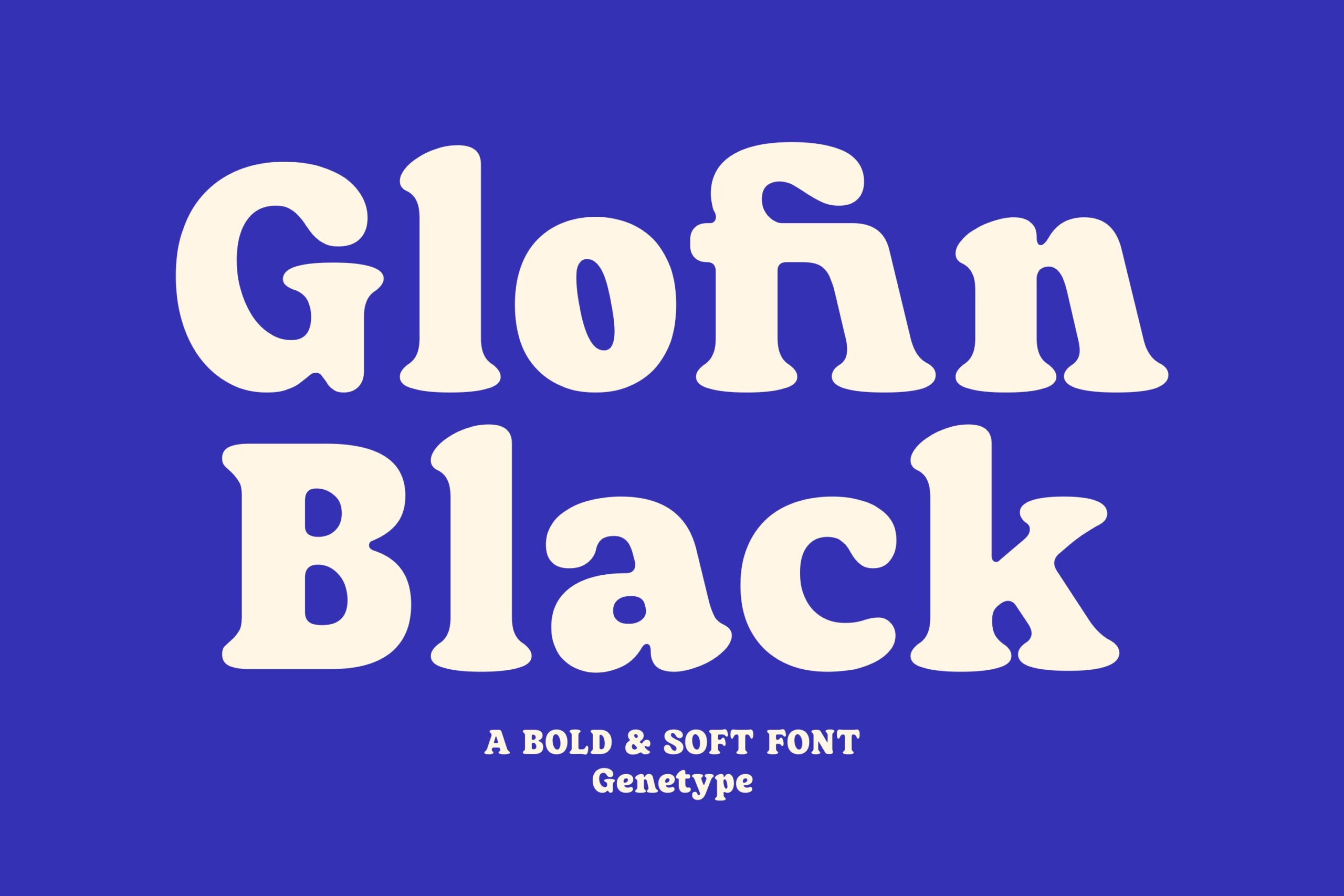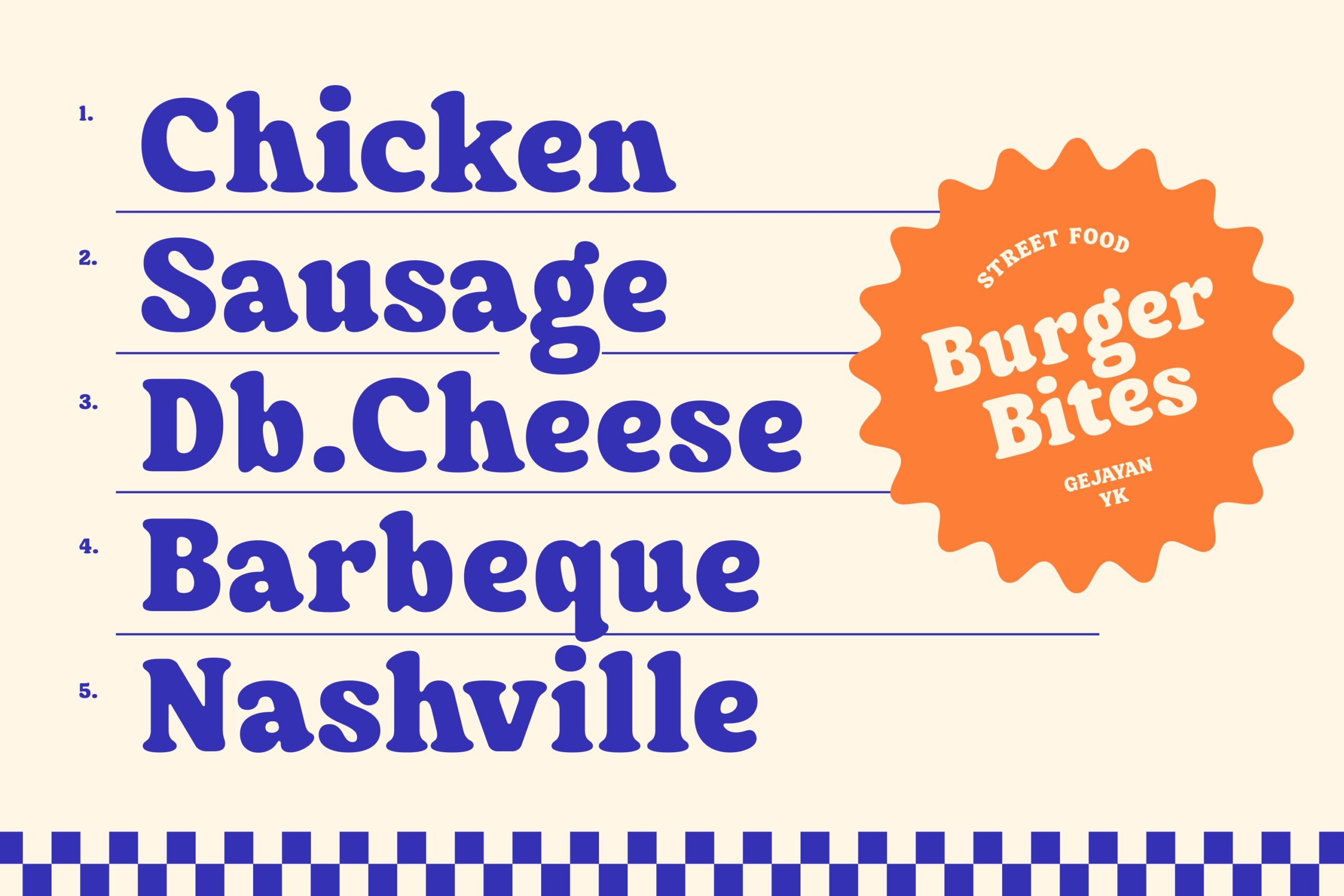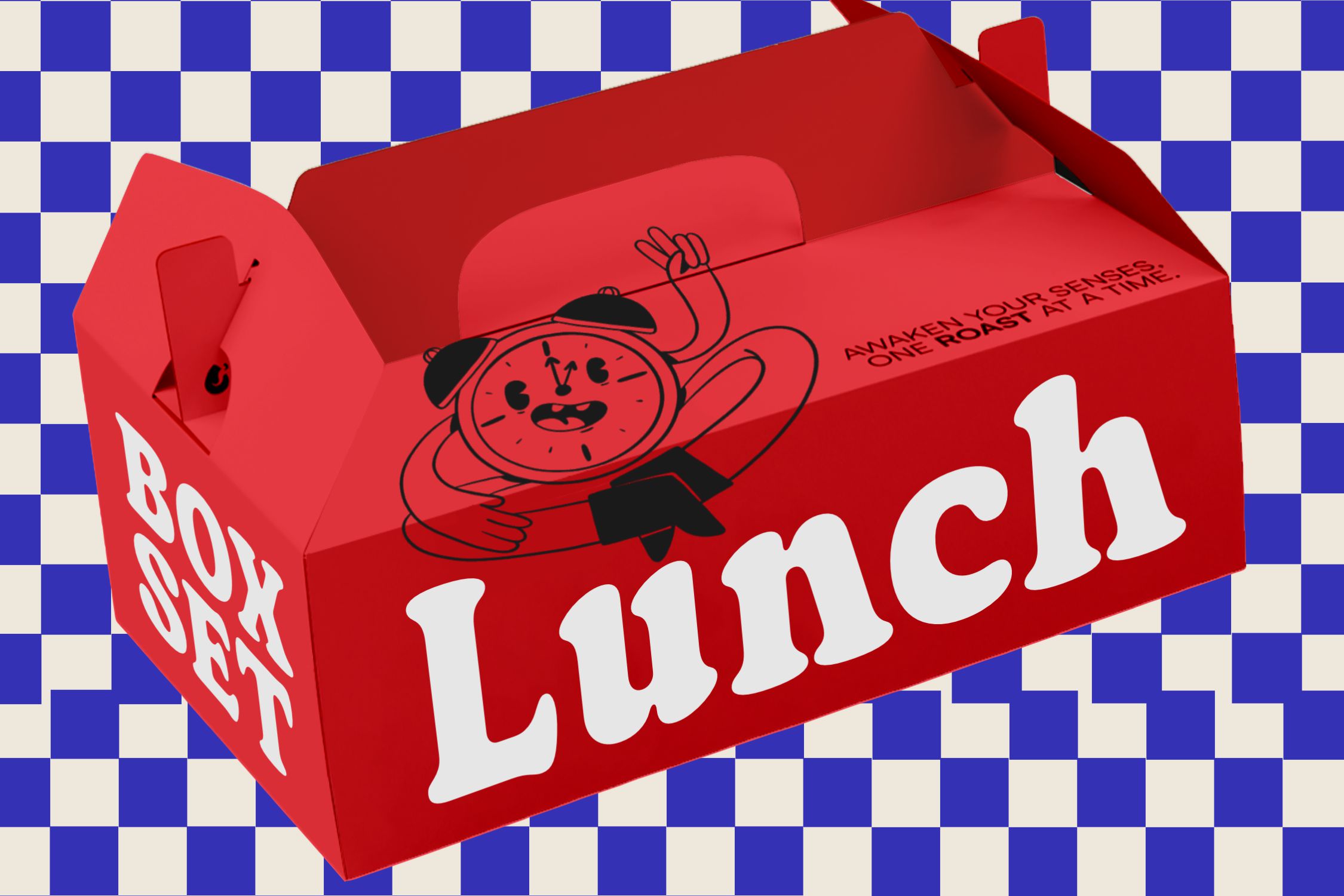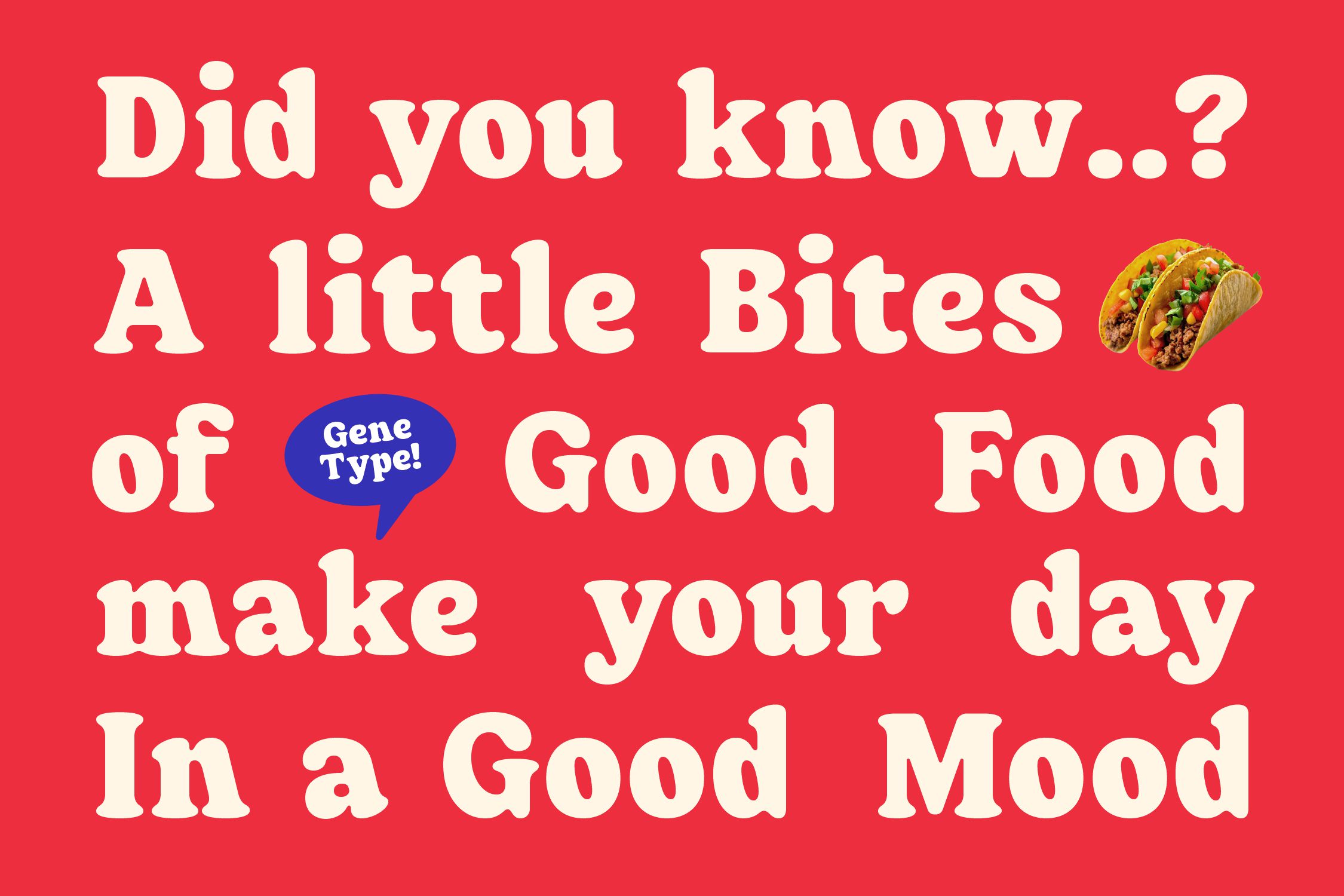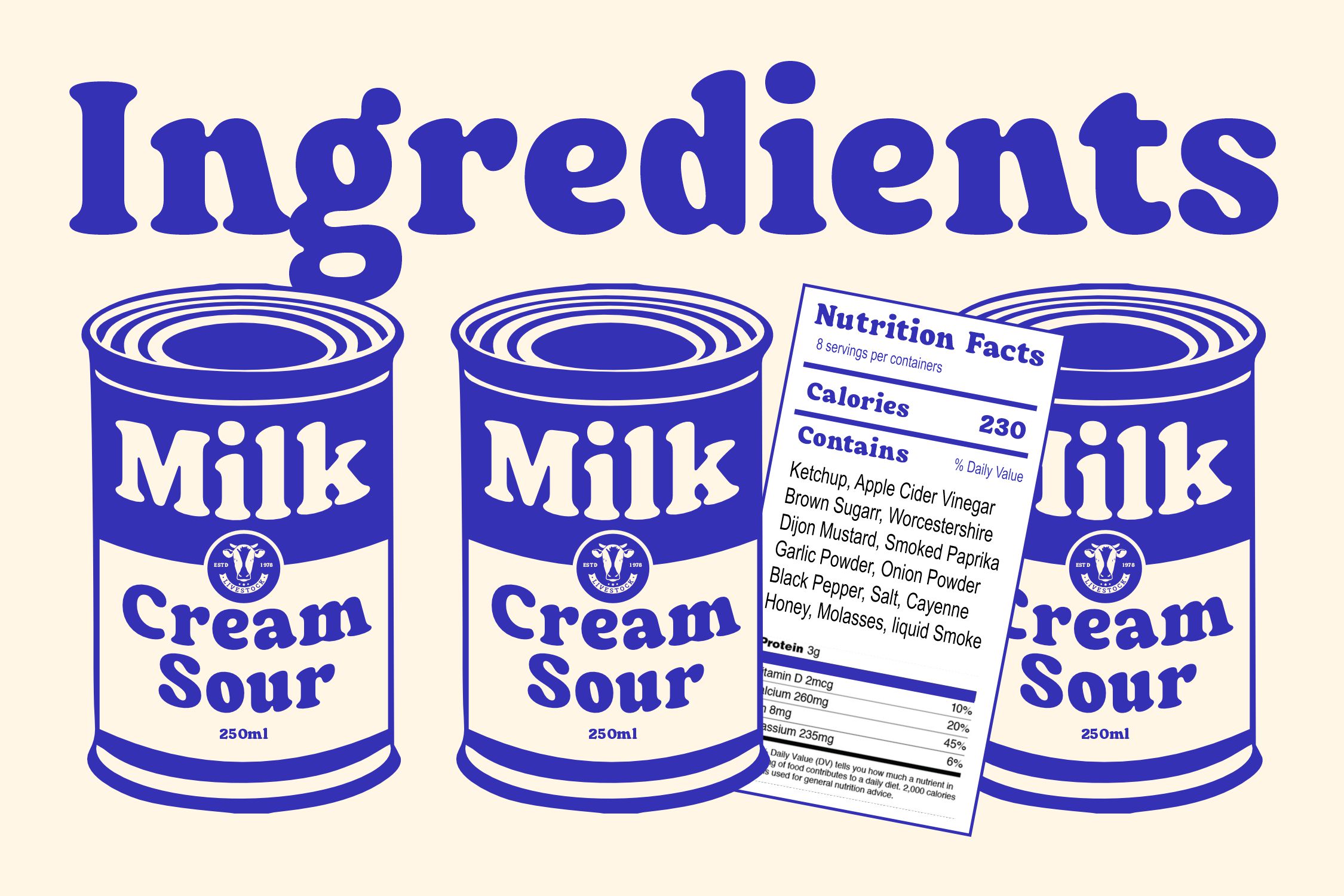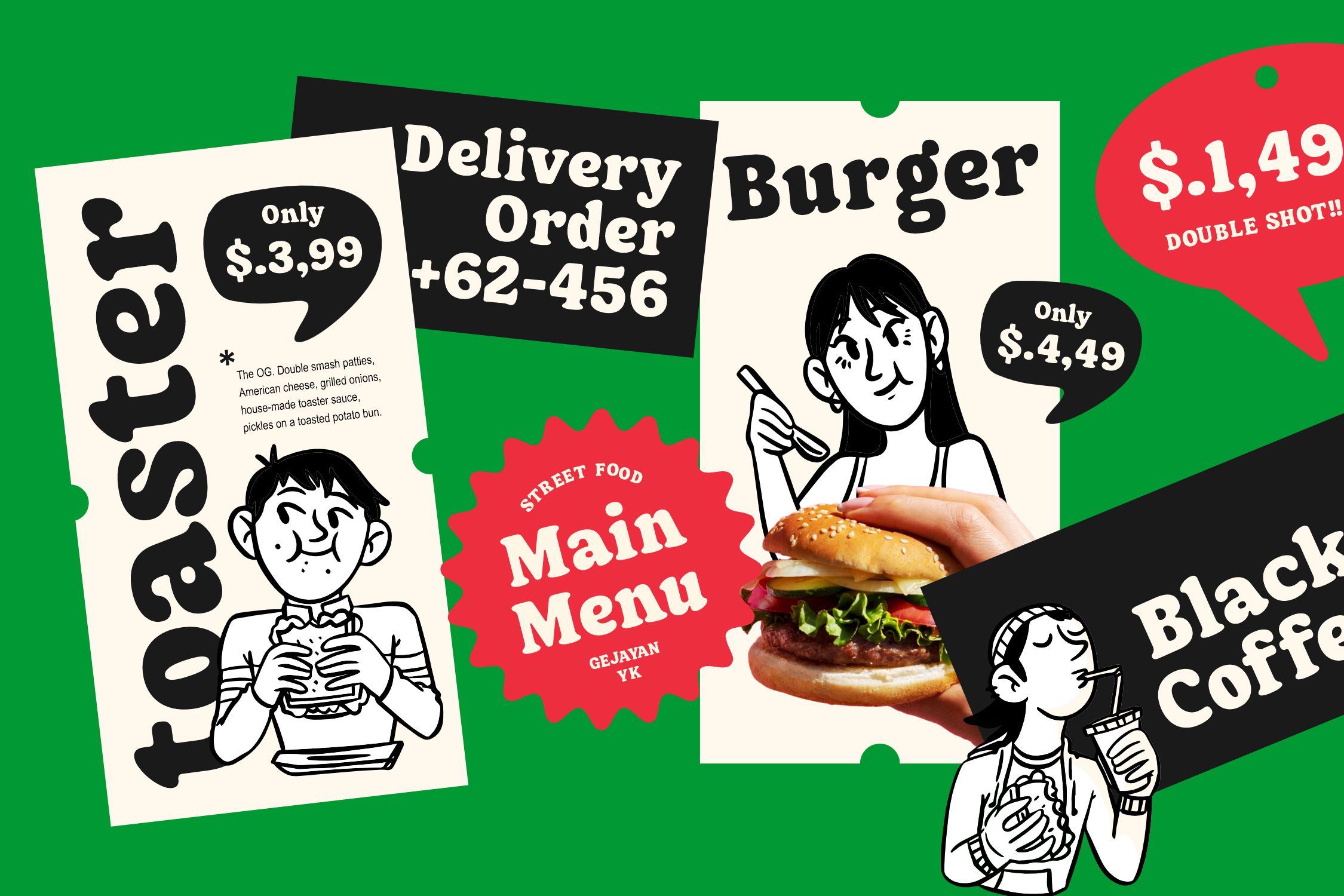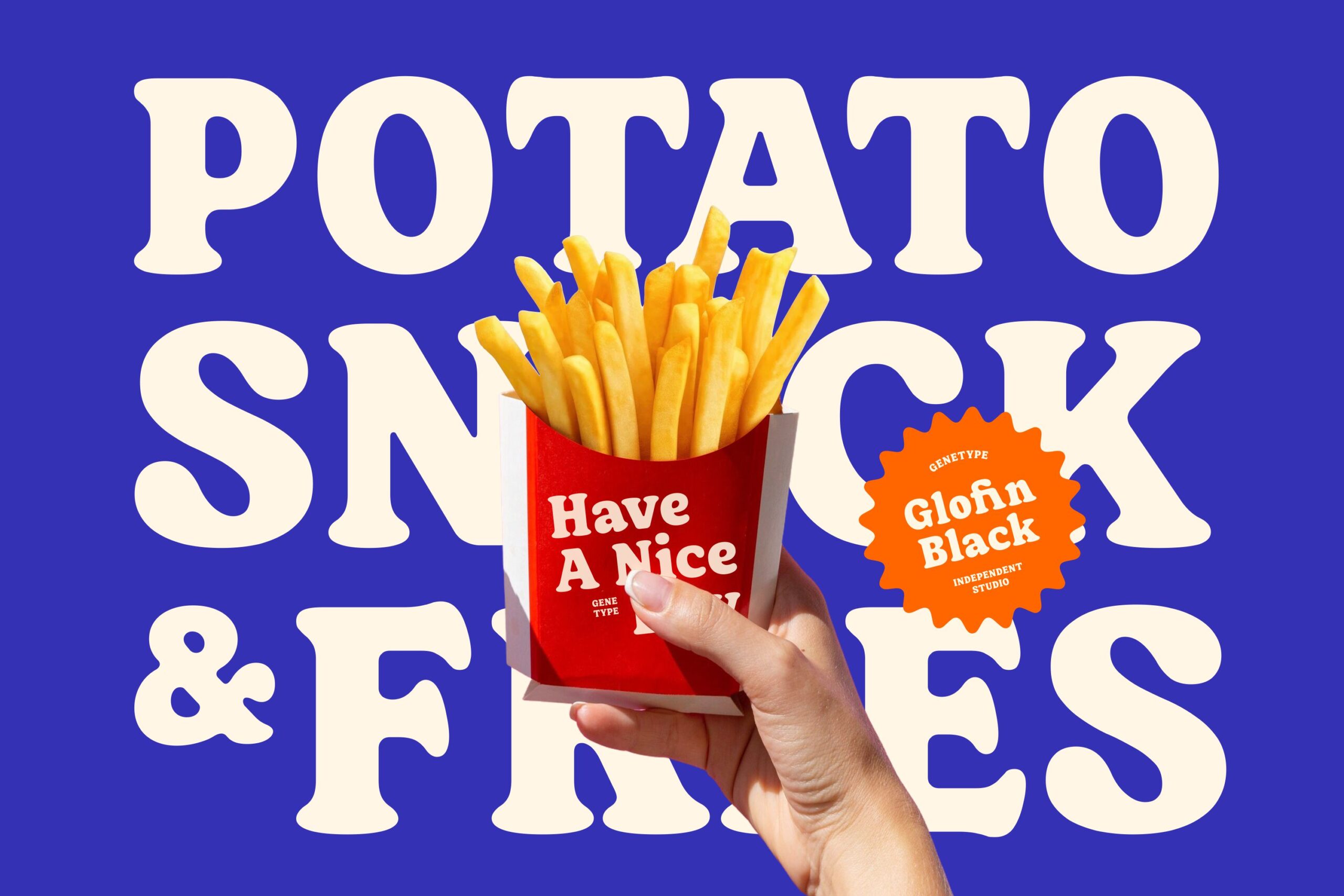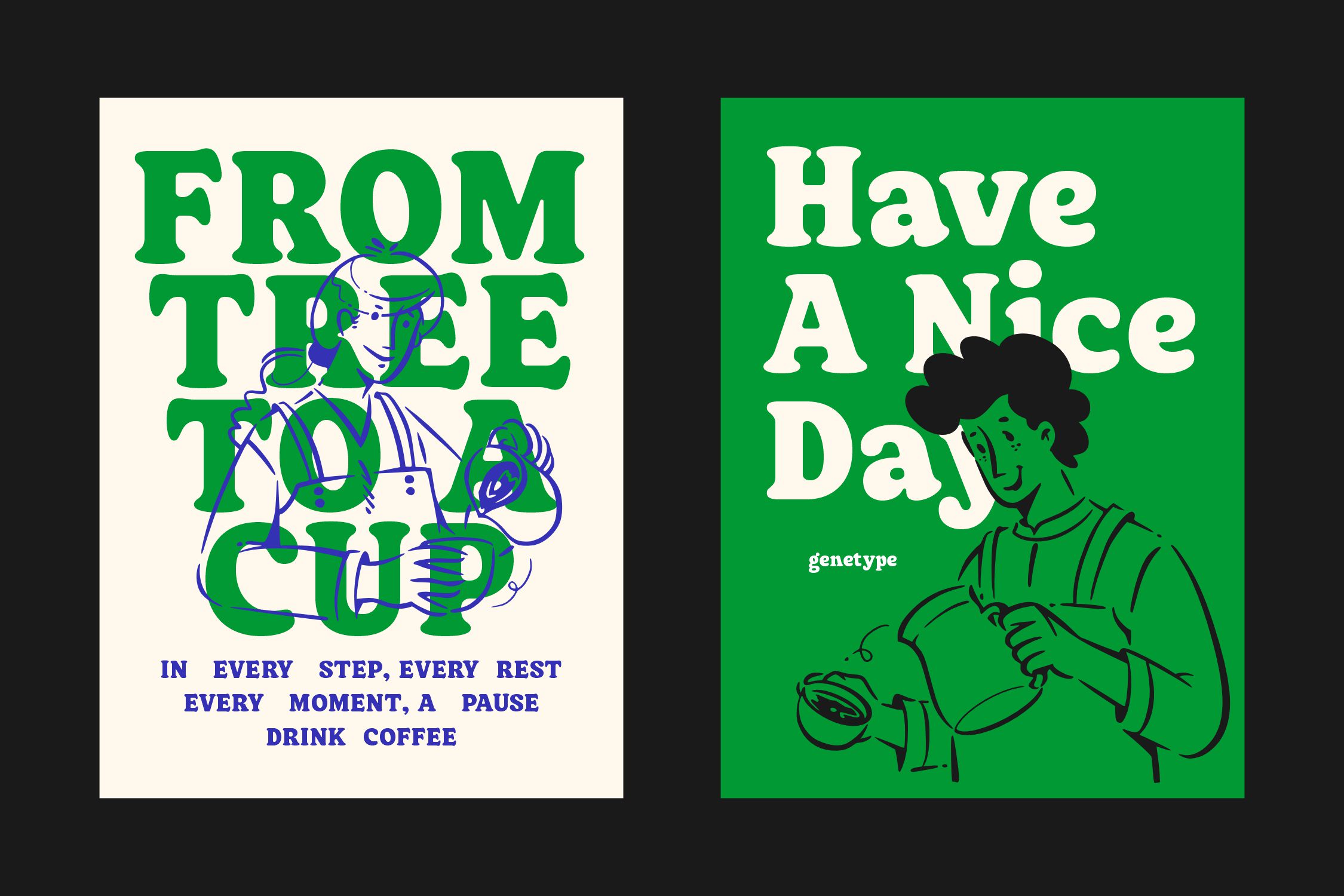
Glofin Black
Introducing Glofin Black, inspired by Cooper Black but with a twist, Glofin Black brings chunky vibes with a fresh, modern feel. It’s bold, friendly, and full of personality—perfect for logos, posters, or anything that needs to stand out in style.
Retro? Yes. Boring? Never!